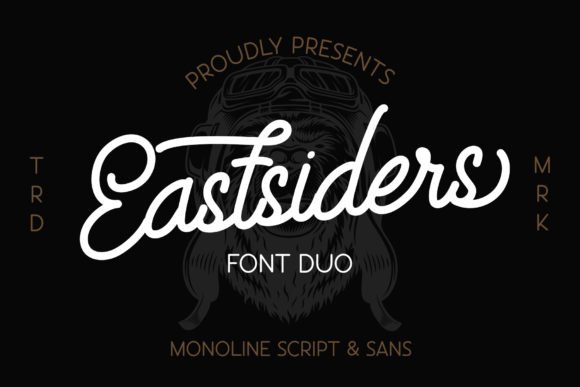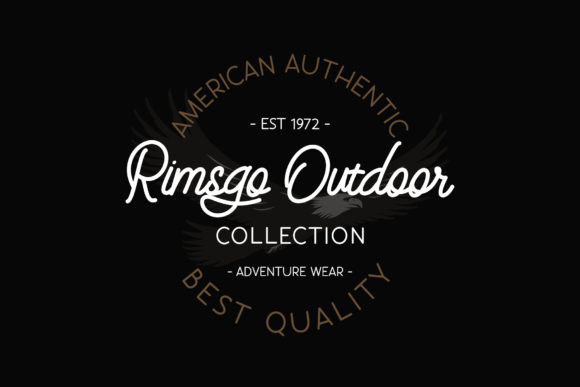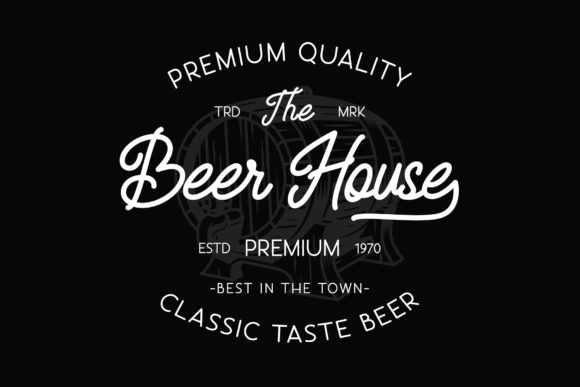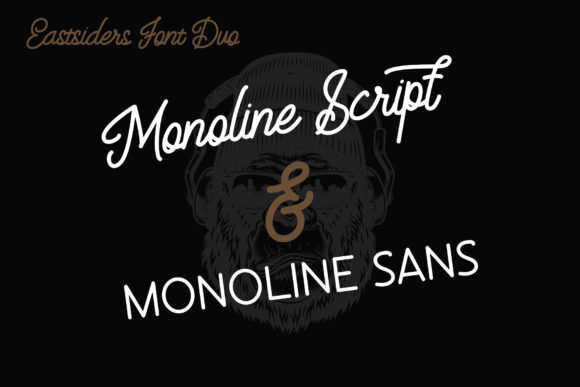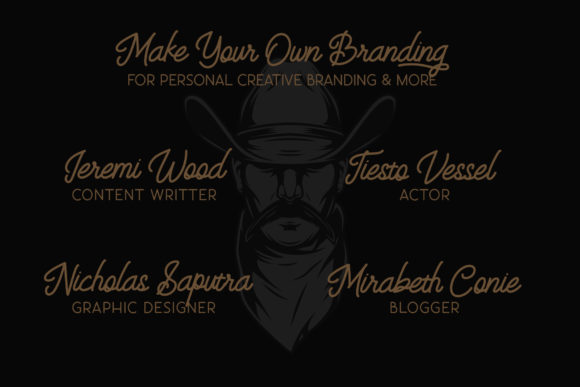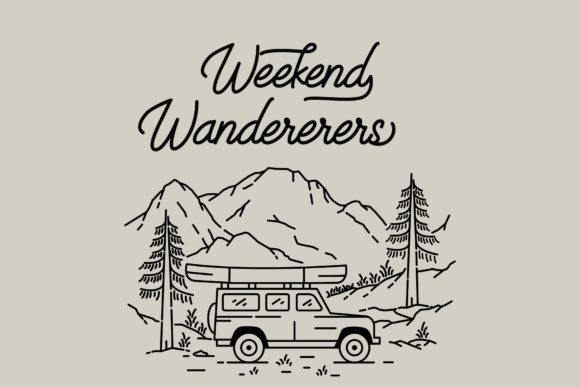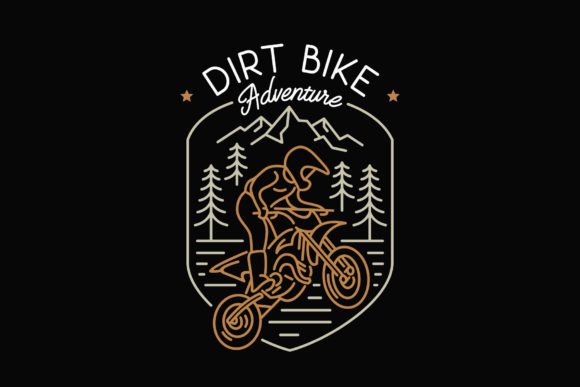
The Power of Eastsiders Font
As a designer, you know that moment when your idea clicks into place – the spark of creativity that ignites a new project. It’s a rush of excitement and possibility, and you can’t wait to see your vision come to life. For me, that moment happened when I stumbled upon the Eastsiders Font, a stunning duo font that combines the elegance of a sans serif with the flair of a script.
With Eastsiders Font, you’ll have the perfect tool to elevate your designs to the next level. Whether you’re crafting a logo, creating a marketing campaign, or designing a website, this font is the perfect addition to your toolkit. Its incredible versatility and PUA encoding make it a valuable asset for designers, allowing you to access a wide range of glyphs and swashes with ease.
Eastsiders Font Key Features
- Font Family: Eastsiders Font is a unique, modern sans-serif font designed for digital use.
- Unique Characteristics: Features a distinctive, rounded design with a subtle flair at the ends of the strokes, giving it a friendly and approachable feel.
Eastsiders Font Review
I recently had the chance to work with the Eastsiders Font, and here’s my honest review.
What works well: ✨ The Eastsiders Font has a unique, laid-back vibe that’s perfect for creative projects. It’s a great choice for designers looking to add some personality to their work. ✨ The font is highly customizable, allowing you to adjust the weight, width, and even the individual letterforms. ✨ The OpenType features are also well-implemented, making it easy to create complex designs.
Limitations: ⚠️ One of the main limitations of the Eastsiders Font is its limited character set. While it includes a good selection of Latin characters, it falls short in terms of language support. ⚠️ The font also appears to be quite thin, which can make it difficult to read at small sizes. ⚠️ I also found the font to be a bit overused in some design contexts, which can make it feel less unique than it actually is.
Overall, I think the Eastsiders Font is a solid choice for designers looking for a fun, creative font. While it may have some limitations, its unique style and customization options make it a great addition to any design toolkit.
- Unique, laid-back vibe
- Well-implemented OpenType features
Getting the Most Out of Eastsiders Font
Here are some tips for getting the most out of the Eastsiders font:
- Use it for titles and headings to add a touch of sophistication.
- Pair it with other fonts to create a unique and eye-catching design.
The Eastsiders font is ideal for:
- Business cards and brochures.
- Marketing materials and advertisements.
Alternatives to Eastsiders Font for Designers
Great Vibes is a modern, elegant script font perfect for creative projects, wedding invitations, and promotional materials. It’s ideal for designers who want a sophisticated and refined look. Great Vibes is more ornate and decorative compared to Eastsiders Font, which is more minimalist and geometric.
Pacifico is a beautiful, cursive font inspired by traditional Spanish scripts. It’s suitable for designers who want to add a touch of elegance and sophistication to their projects. Pacifico is more flowing and cursive compared to Eastsiders Font, which is more geometric and clean.
Lato is a sans-serif font with a modern and clean design, making it perfect for corporate projects, websites, and digital materials. It’s ideal for designers who want a versatile and professional font. Lato is more modern and clean compared to Eastsiders Font, which is more vintage and geometric.
Ostrich Sans is a modern, sans-serif font with a unique and quirky design. It’s suitable for designers who want to add a touch of personality and fun to their projects. Ostrich Sans is more playful and quirky compared to Eastsiders Font, which is more minimalist and geometric.